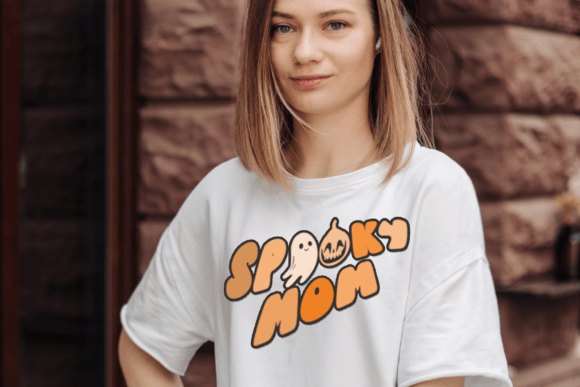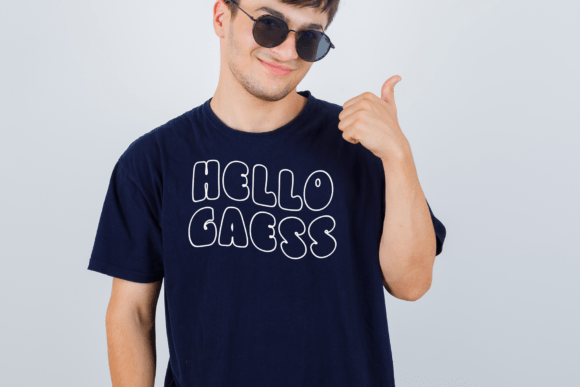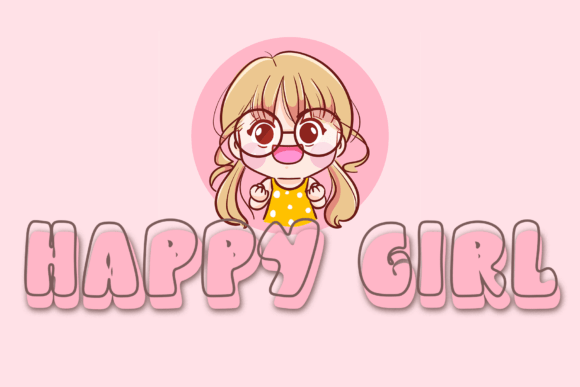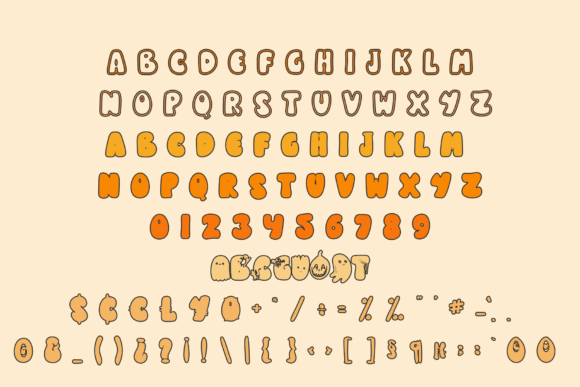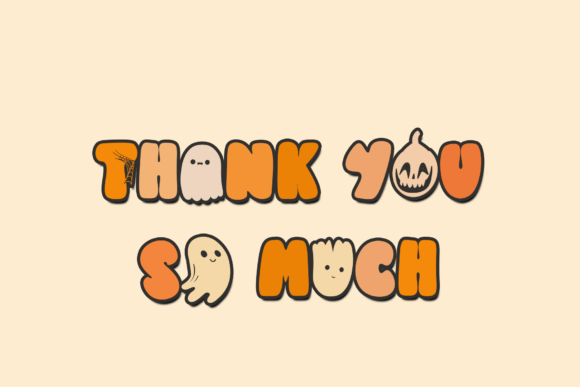
Introduction to Chubby Ghost Font
Have you ever found yourself staring at a blank design canvas, trying to spark a creative idea? It’s a familiar feeling for many designers, and it’s precisely this moment when a high-quality design resource like the Chubby Ghost Font can be a game-changer.
As a versatile and playful font, Chubby Ghost is perfect for adding a touch of whimsy to your creative project. Whether you’re working on a greeting card, a social media campaign, or a blog post, this retro display font is sure to bring a smile to your audience’s faces. With its transparent background, you can easily integrate it into any design, making it a valuable addition to your design toolkit.
Key Features of Chubby Ghost Font
- High-quality design resource for creative projects: Chubby Ghost Font is a unique and eye-catching font that can elevate any design project.
- Perfect for digital and print projects: This font is suitable for both digital and print projects, including logos, graphics, and text-based designs.
- Unique, playful design: Chubby Ghost Font features a unique and playful design that can add a touch of whimsy to any creative project.
- High-resolution design: This font is designed at a high resolution, ensuring that it remains crisp and clear even when scaled up or down.
- Ideal for designers and artists: Chubby Ghost Font is a valuable resource for designers and artists looking for a high-quality, unique font to enhance their creative projects.
Honest Review: Chubby Ghost Font
As a designer, I’ve come across many fonts that claim to be the next big thing. But, after using the Chubby Ghost Font, I can confidently say that it’s a high-quality resource for any creative project.
- ✨ Unique aesthetic: The Chubby Ghost Font has a distinct, playful feel that’s perfect for projects that need a bit of whimsy.
- ✨ Clear readability: The font is well-designed and easy to read, even at smaller sizes.
- ⚠️ Limited language support: Unfortunately, the Chubby Ghost Font only supports a limited number of languages, which might be a issue for global projects.
- ⚠️ No transparent background: If you need a font with a transparent background, this one might not be the best choice.
Overall, I’m impressed with the Chubby Ghost Font. While it may have some limitations, its unique aesthetic and clear readability make it a valuable addition to any designer’s toolkit. Whether you’re working on a personal project or a client’s brief, this font is definitely worth considering.
How to Use Chubby Ghost Font
The Chubby Ghost Font is a high-quality, free download design resource ideal for creative projects. This versatile font features a unique, playful style that’s perfect for adding a touch of whimsy to your designs.
Getting the Most Out of Chubby Ghost Font
For the best results, use the Chubby Ghost Font on a transparent background to create a seamless design. Experiment with different font sizes and colors to add visual interest to your project.
The Chubby Ghost Font is perfect for:
- Designing social media graphics and ads
- Creating invitations and party decorations
- Developing branding and logo designs
Alternatives to Chubby Ghost Font
1. Pixelify Font
The Pixelify Font is a high-quality design resource ideal for creative projects requiring a pixelated aesthetic. It features a transparent background, making it versatile for various design applications. When to use: For pixel art, retro-themed designs, or projects with a nostalgic feel. Comparison to Chubby Ghost Font: Pixelify Font has a more pixelated appearance, whereas Chubby Ghost Font is more cartoonish and rounded.
What is the recommended resolution for using the Chubby Ghost Font?
For optimal results, we recommend using the Chubby Ghost Font at a resolution of at least 300 DPI (dots per inch) for print materials and 72 DPI for digital applications. This ensures that the font’s high-quality design is preserved and appears crisp and clear in your final design output.